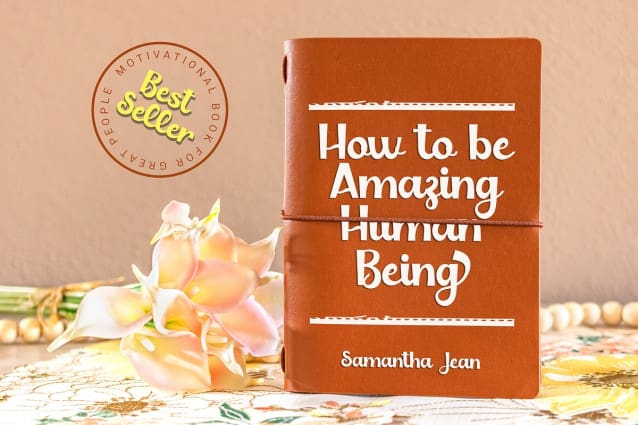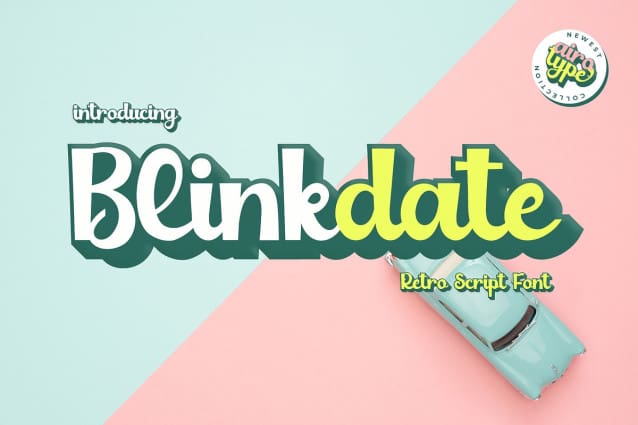
Blinkdate Script Font
Blinkdate Script Font, is elegant and modern handwritten font. It is clean, smooth, sharp-edged, and elegant. Blinkdate is perfect script font for any elegant projects, such as branding, t-shirt, stickers, crafting, and so on.